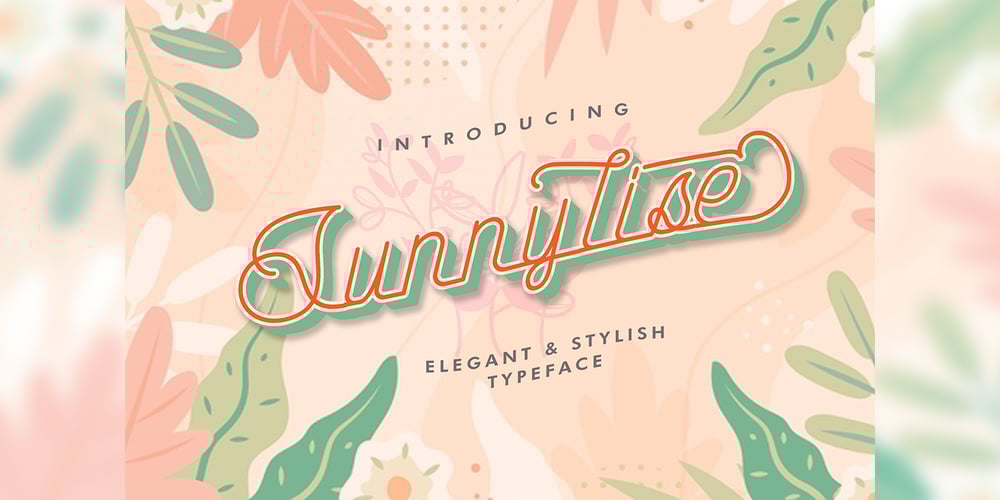
Sunnylise Font Family was designed by Muhammad Afif Ersya and published by Mevstory Studio. Sunnylise contains 2 styles and family package options. Sunnylise, from Mhdafifersya, is a handwritten script font with a simple and classy style. It includes a set of lowercase characters without connecting strokes. Be sure to turn on your OpenType features when using Sunnylise – it’s packed with ligatures and alternate characters for both upper and lower case glyphs. This font is great for your next creative projects such as headlines, quotes, album cover, bold branding, business cards, and many other design project. Thanks